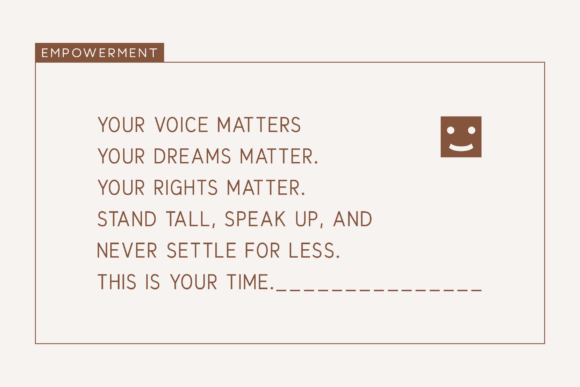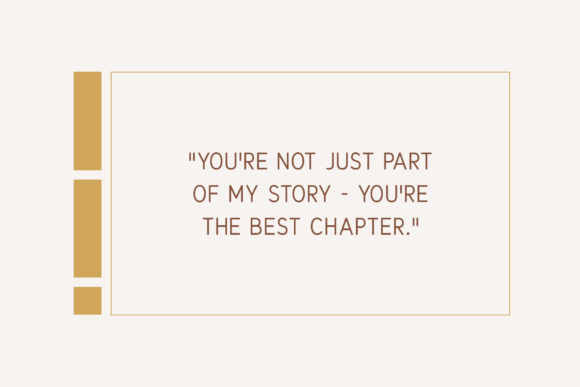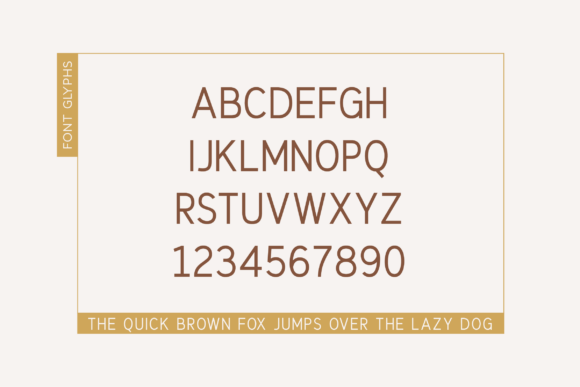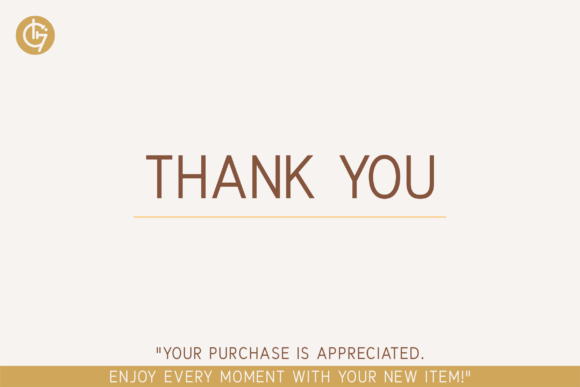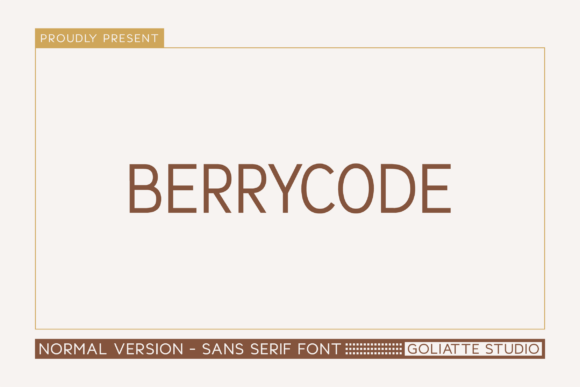
Introducing Berrycode – A Modern Sans Serif Typeface
As a designer, I’ve had my fair share of struggles when it comes to finding the perfect font for a project. I recall working on a branding project for a tech startup, spending hours scouring through font libraries, and still, nothing seemed quite right. That was until I stumbled upon Berrycode – a bold, all-caps sans serif font that instantly caught my attention. In this article, I’ll share my experience with Berrycode, its features, and how to make the most of this versatile typeface.
The Design Moment: When Fonts Matter
It was a typical Monday morning when I received an urgent message from a client: “We need a new logo and brand identity, and we need it yesterday!” The catch? They wanted a font that exuded professionalism, strength, and authority. I knew I had to act fast. After a quick search, I discovered Berrycode, and it quickly became my go-to font for the project. The clean lines, minimalist aesthetic, and bold design made it an instant winner.
Berrycode: A Modern Sans Serif Typeface
Berrycode is a bold, all-caps sans serif font designed for the modern designer. With its clean lines and minimalist aesthetic, this typeface exudes strength and authority. It is perfect for projects that require a sense of professionalism and impact. Whether you’re designing a logo, website, or print material, Berrycode makes a statement with its sharp, crisp edges.
Features and Benefits
• All-caps design for maximum impact ✨
• Modern, minimalist style with a focus on readability βœ…
• Bold, clean lines for a confident and professional look πŸ’Ό
• Ideal for branding, logos, packaging, and digital design πŸ“ˆ
• Perfect for both large-scale headlines and smaller text blocks πŸ“„
Honest Review: The Good and the Quirks
• The bold design and clean lines make it perfect for headlines and titles ✨
• The all-caps design ensures clarity and readability, even at smaller font sizes βœ…
• The font is highly versatile and can be used for both digital and print projects πŸ“ˆ
While Berrycode is an excellent font, there are a few things to keep in mind: πŸ€”
• The font is all-caps, which may not be suitable for body text or longer paragraphs ⚠️
• Some users may find the font too bold or overpowering for certain design applications ⚠️
The Designer Inspiration Behind Berrycode
The story behind Berrycode begins with a young designer named Alex, who was frustrated with the lack of modern sans serif fonts available. Alex spent countless hours researching and experimenting with different font designs, eventually creating Berrycode – a font that combines clean lines, bold design, and versatility.
Font Name Berrycode Font
Author Goliatte Studio
Q: What is Berrycode?
A: Berrycode is a modern sans serif typeface designed for the modern designer, perfect for branding, logos, and digital design.
Q: Is Berrycode suitable for body text?
A: While Berrycode is an excellent font for headlines and titles, it may not be the best choice for body text or longer paragraphs due to its bold design and all-caps style.
Q: Is Berrycode available in different weights or styles?
A: Currently, Berrycode is available in a single bold weight, but the designer may release additional weights or styles in the future.